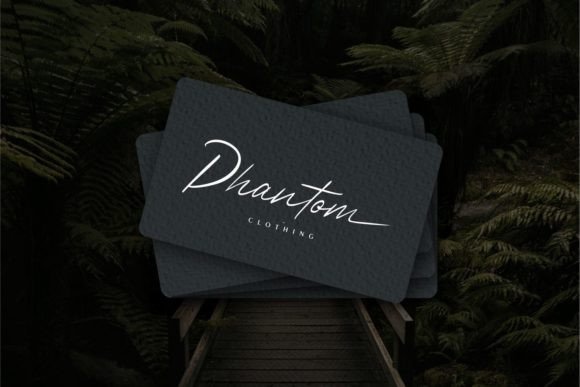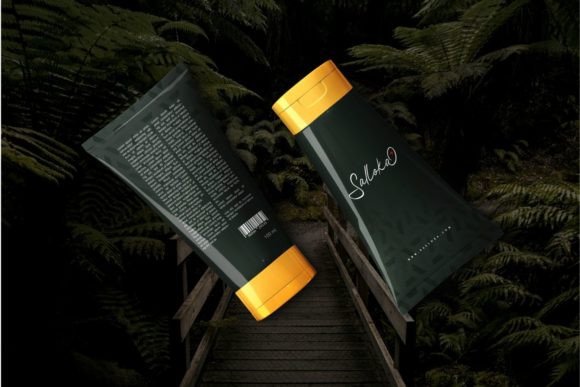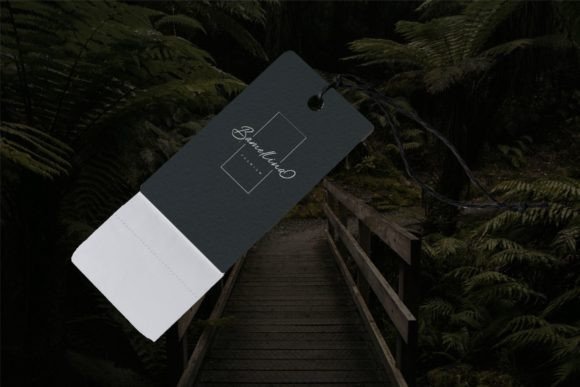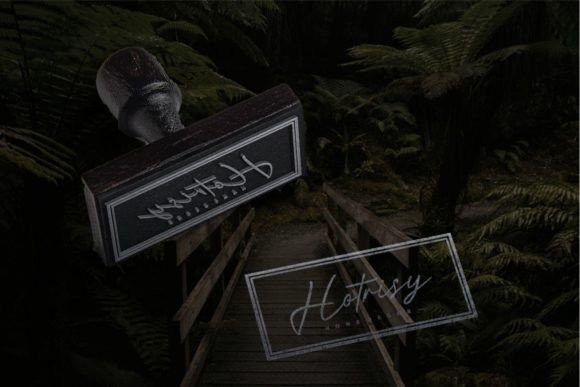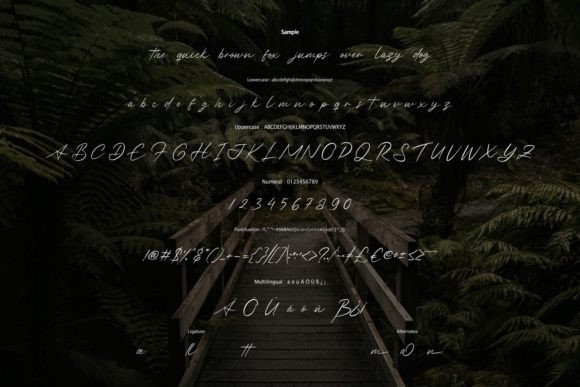
Discover the Charm of Distlank Thosind Font: Elevate Your Designs with a Timeless Handwritten Style
In the world of typography, few fonts manage to capture the essence of elegance and charm as effectively as the Distlank Thosind font. This lovely and timeless handwritten font has been making waves among designers and crafters alike, and for good reason. Its unique blend of classic appeal and modern flair makes it the perfect choice for creating eye-catching logos, branding materials, and quotes that stand out from the crowd.
The Unique Character of Distlank Thosind
One of the standout features of Distlank Thosind is its distinctive character. Every letter in this font has been carefully crafted to possess a unique and beautiful touch, setting it apart from more generic fonts. This attention to detail ensures that your designs don’t just look good; they come alive with a personality that resonates with your audience.
Whether you’re working on a logo, a branding project, or a set of quotes, Distlank Thosind offers the versatility and charm to elevate your work. Its handwritten nature gives it a personal and approachable feel, making it ideal for projects where you want to connect with your audience on a more intimate level.
Why Choose Distlank Thosind for Your Projects?
So, what makes Distlank Thosind the go-to font for designers and crafters? Here are a few compelling reasons:
• Elegance and Timelessness: Distlank Thosind boasts an elegance that never goes out of style. Its timeless appeal ensures that your designs remain relevant and captivating for years to come.
• Versatility: From logos and branding to quotes and more, this font adapts seamlessly to various design needs, offering the flexibility to experiment with different styles and themes.
• Unique Touch: The distinctive character of each letter in Distlank Thosind adds a special touch to your designs, setting them apart in a crowded digital landscape.
• Emotional Connection: The personal and approachable feel of this handwritten font helps create an emotional connection with your audience, enhancing the impact of your message.
How to Use Distlank Thosind Effectively in Your Designs
To make the most of Distlank Thosind, consider the following tips:
• Pair it with Complementary Fonts: When combining Distlank Thosind with other fonts, choose ones that complement its elegance and handwritten charm. A mix of serif and sans-serif fonts can create a visually appealing contrast.
• Experiment with Colors: Don’t be afraid to play with different colors to find the perfect match for your design. Distlank Thosind can look stunning in both bold and subtle color schemes.
• Pay Attention to Spacing: Ensure that your text is easy to read by paying attention to spacing. The right balance can make your design look polished and professional.
Distlank Thosind is more than just a font; it’s a design element that can transform your projects with its timeless elegance and unique charm. Whether you’re a designer looking to elevate your branding, a crafter seeking a distinctive style for your quotes, or simply someone who appreciates beautiful typography, Distlank Thosind is an excellent choice.
Its ability to connect with audiences on a personal level, combined with its versatility and distinctive character, makes it a valuable addition to any designer’s toolkit. So, why settle for ordinary when you can make your designs extraordinary with Distlank Thosind? Explore its possibilities today and discover the difference it can make in your work.